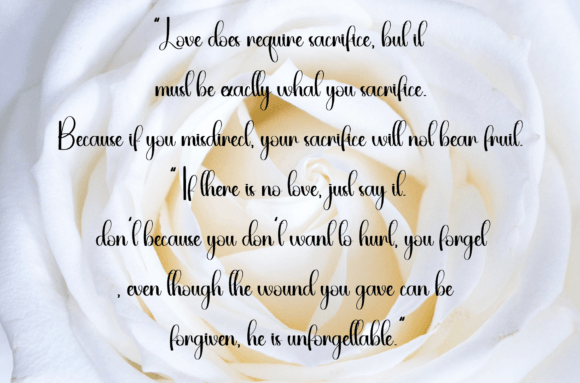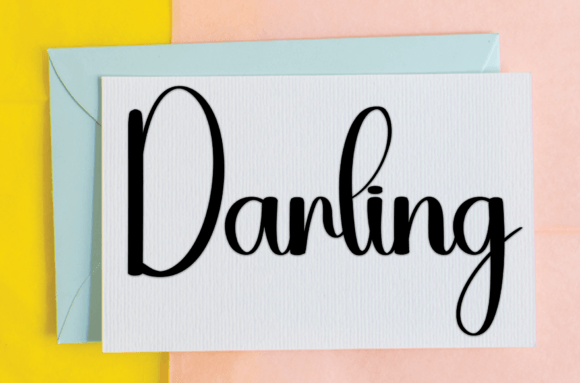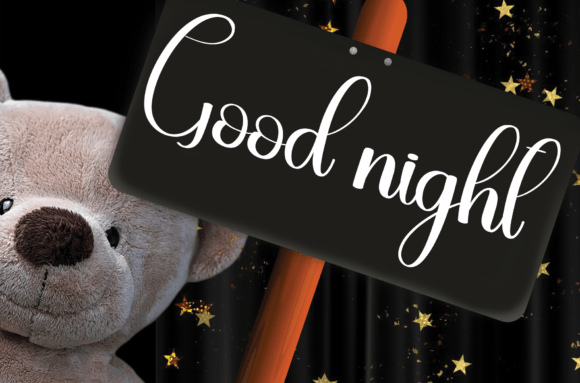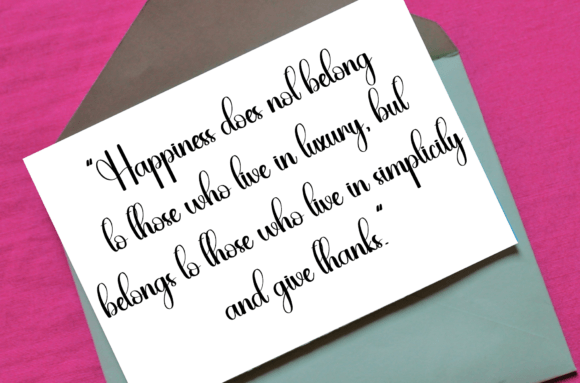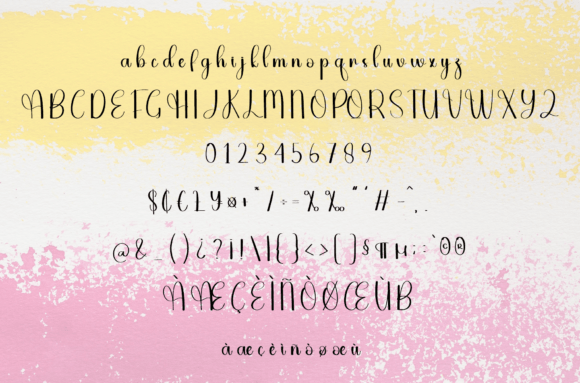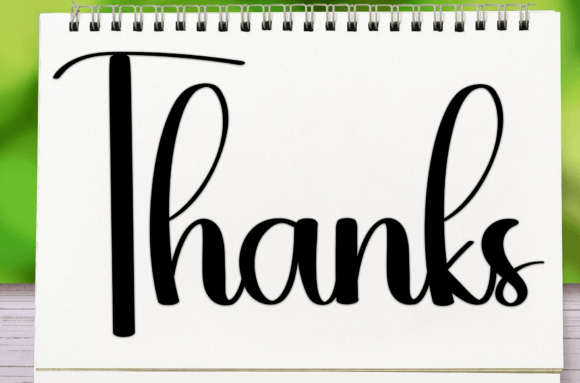
Fried Butter Font: The Sweet and Friendly Handwritten Font for Your Creative Projects
Are you a designer or crafter looking for a font that can add a touch of sweetness and friendliness to your creative projects? Look no further than the Fried Butter Font! This beautiful handwritten font is perfect for writing wedding invitations, cards, or any other design that might need a fun and playful touch.
What is Fried Butter Font?
Fried Butter Font is a sweet and friendly handwritten font that is designed to bring a touch of warmth and personality to your designs. With its creative and cute style, this font is ideal for a wide range of projects, from wedding invitations and cards to posters, flyers, and more.
Characteristics of Fried Butter Font
So, what makes Fried Butter Font so special? Here are just a few of its key characteristics:
- Handwritten style: Fried Butter Font has a beautiful, handwritten style that gives it a personal and friendly feel.
- Sweet and playful: This font is perfect for designs that need a touch of sweetness and playfulness.
- Creative and cute: Fried Butter Font is ideal for designers and crafters who want to add a fun and creative touch to their projects.
- Versatile: This font can be used for a wide range of projects, from wedding invitations and cards to posters, flyers, and more.
Uses for Fried Butter Font
So, what can you use Fried Butter Font for? Here are just a few ideas:
- Wedding invitations: Fried Butter Font is perfect for writing beautiful and unique wedding invitations that will set the tone for your special day.
- Cards: This font is ideal for creating handmade cards for birthdays, holidays, and other special occasions.
- Posters and flyers: Fried Butter Font can add a touch of sweetness and friendliness to your posters and flyers, making them stand out from the crowd.
- Social media graphics: This font is perfect for creating social media graphics that need a personal and friendly touch.
Why Choose Fried Butter Font?
So, why should you choose Fried Butter Font for your next project? Here are just a few reasons:
- Unique and creative: Fried Butter Font is a unique and creative font that will help your designs stand out from the crowd.
- Easy to read: This font is easy to read, even in small sizes, making it perfect for a wide range of projects.
- Customizable: Fried Butter Font can be customized to fit your needs, making it perfect for designers and crafters who want to add a personal touch to their projects.
Tips for Using Fried Butter Font
Here are a few tips for using Fried Butter Font in your designs:
- Use it with a playful color scheme: Fried Butter Font looks perfect with bright and playful color schemes, making it ideal for designs that need a fun and creative touch.
- Pair it with a bold font: For a striking contrast, pair Fried Butter Font with a bold font to create a visually appealing design.
- Experiment with different sizes: Fried Butter Font looks great in a variety of sizes, so don’t be afraid to experiment to find the perfect size for your design.
In conclusion, Fried Butter Font is a sweet and friendly handwritten font that is perfect for designers and crafters who want to add a touch of warmth and personality to their designs. With its creative and cute style, this font is ideal for a wide range of projects, from wedding invitations and cards to posters, flyers, and more. So why not give Fried Butter Font a try and see how it can elevate your designs?